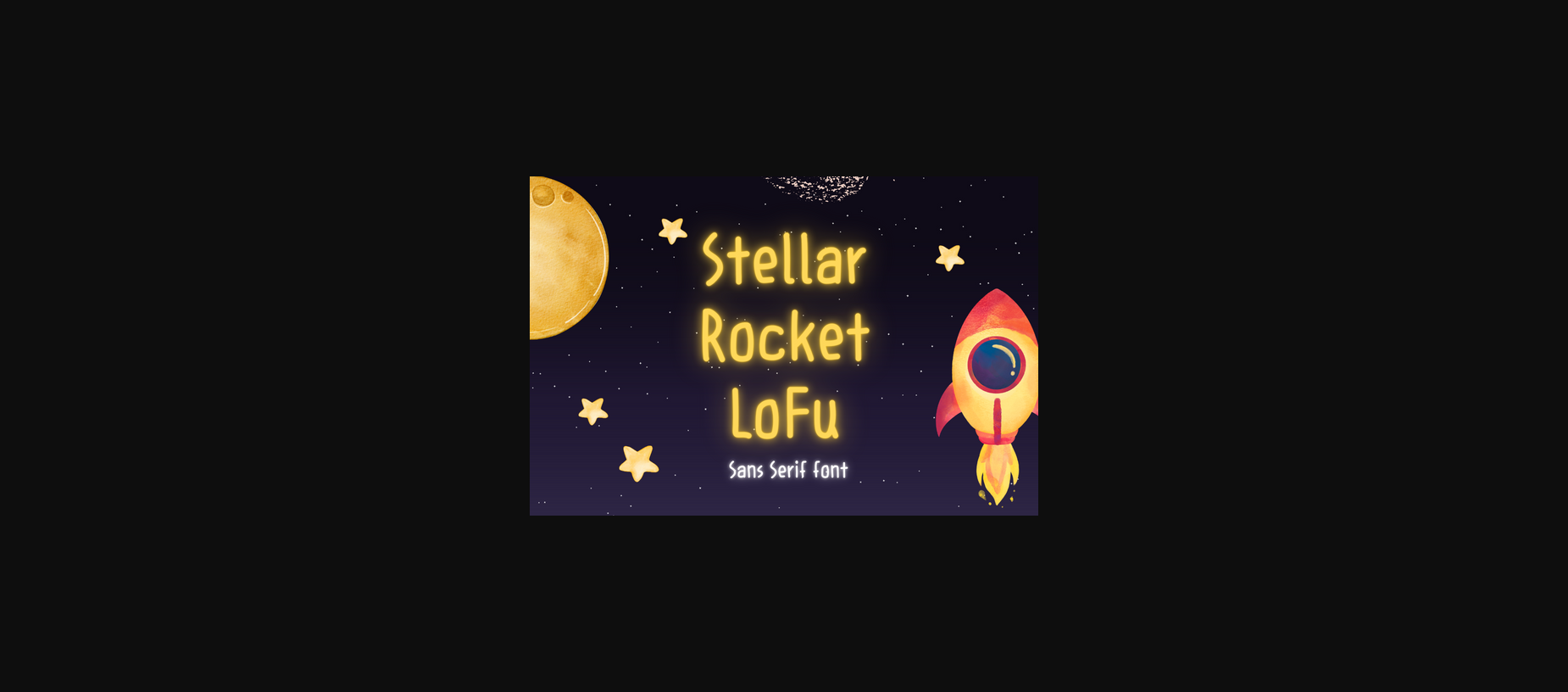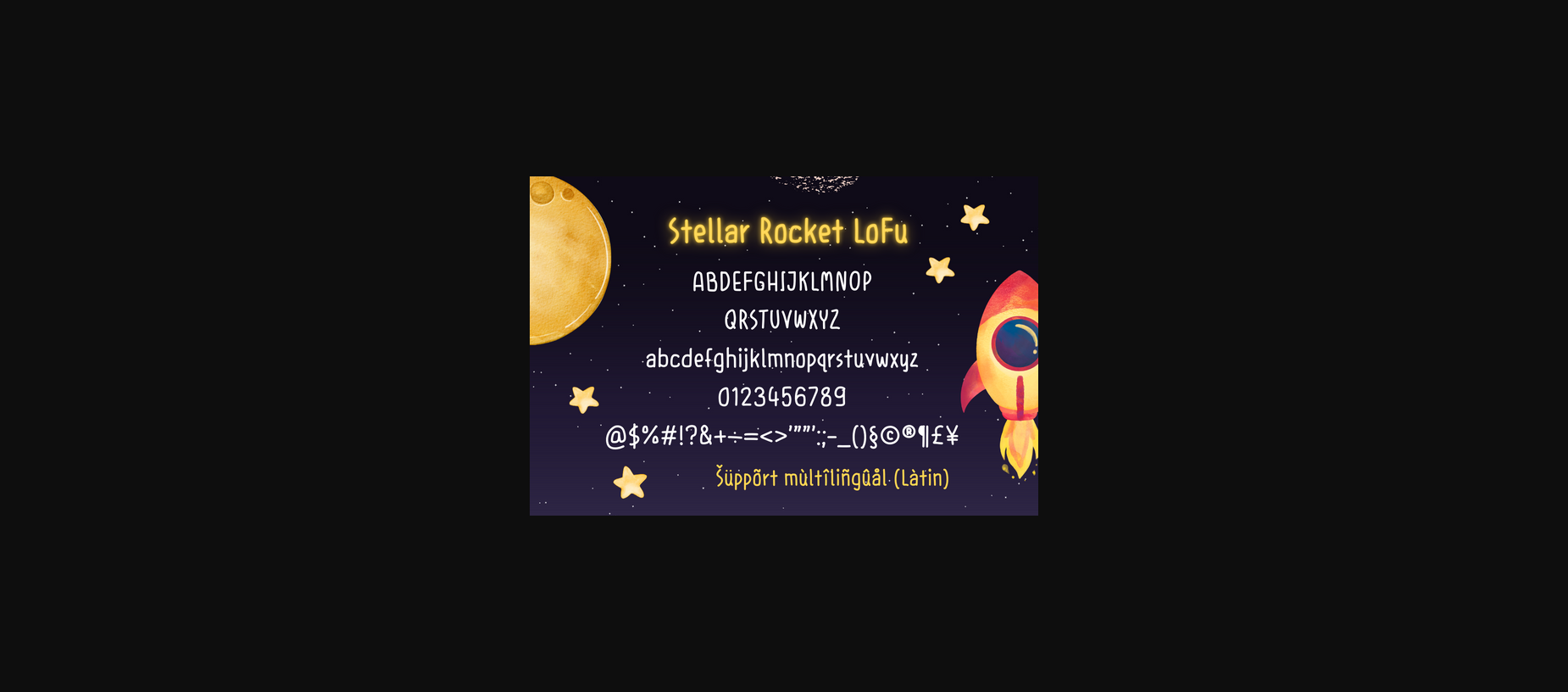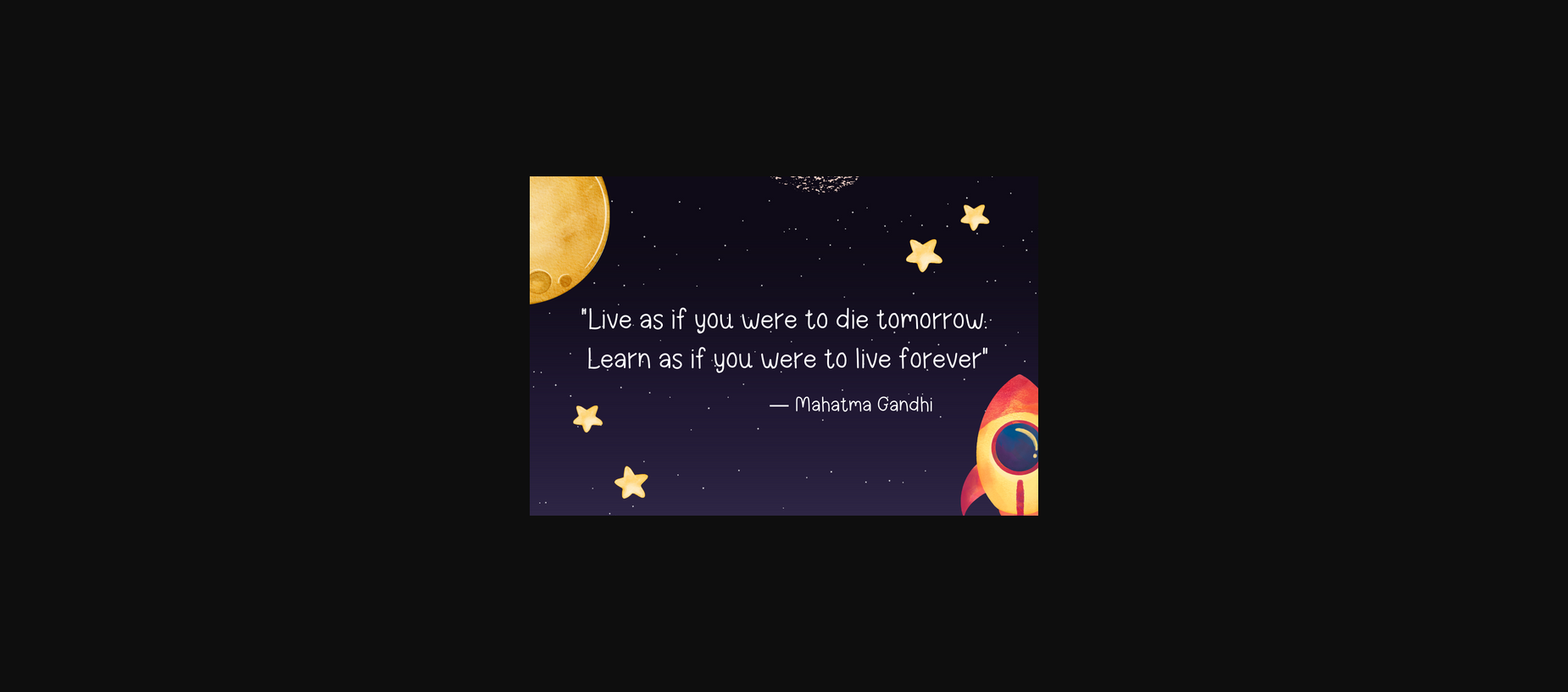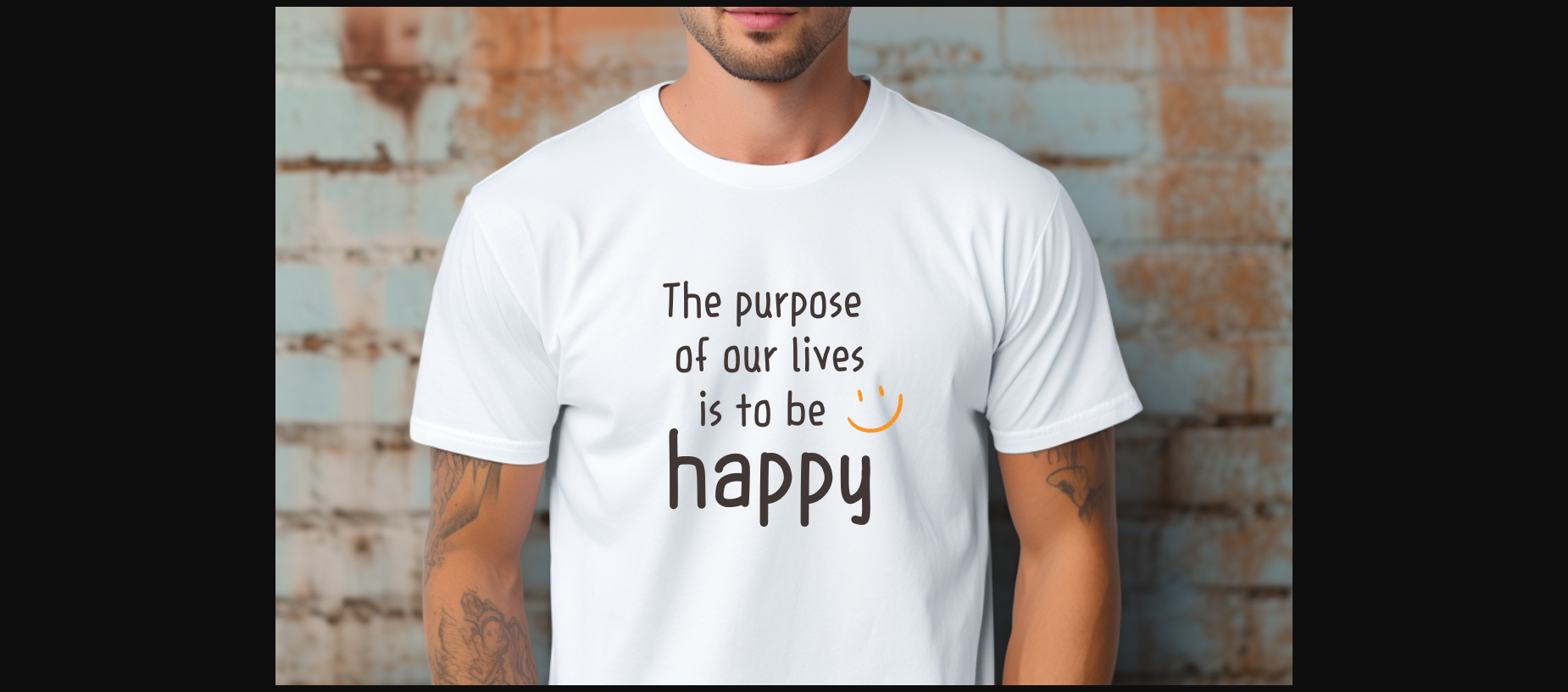
About Stellar Rocket Lofu Font
Stellar Rocket LoFu is designed in a cute, quirky and modern handwritten font. It would be awesome to your fun projects or diary planner, on wedding invitations, thank you cards, quotes, greeting cards, logos, posters, blogs, bag, T Shirt, clothing and other designs. choice for each to your creations and take your designs to the next level!